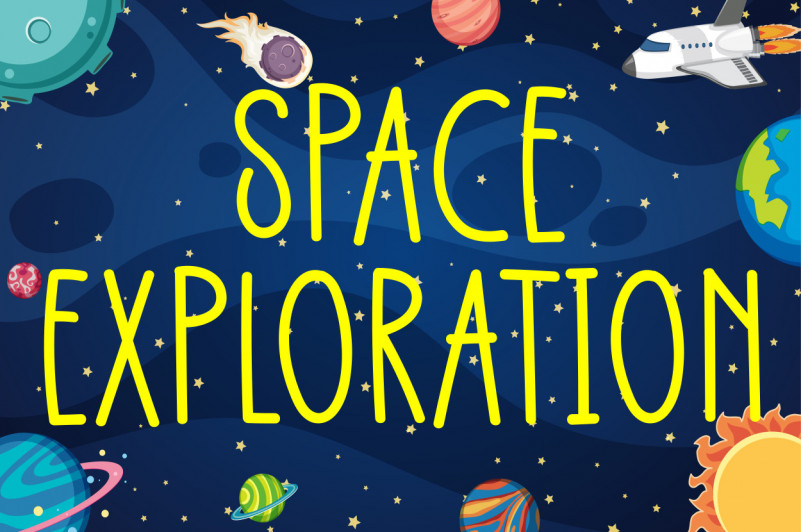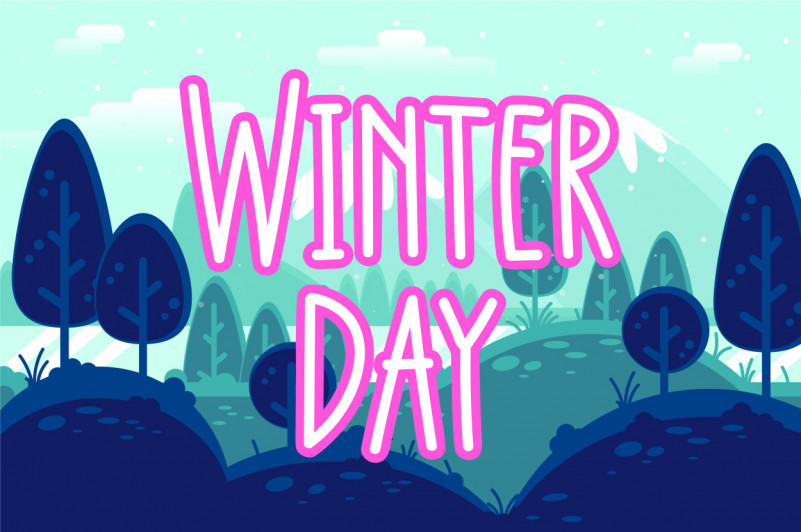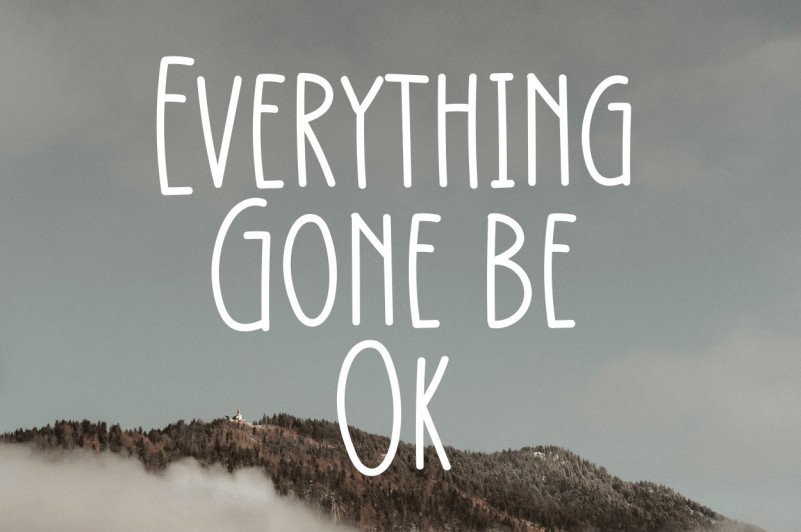
Crafty Yellow Font
Crafty Yellow Display Font
Crafty Yellow Font is a readable and quirky handwritten font. Whether you use it for cartoon related designs, children games or just any creation that requires a lovely touch, this font will be an amazing choice.